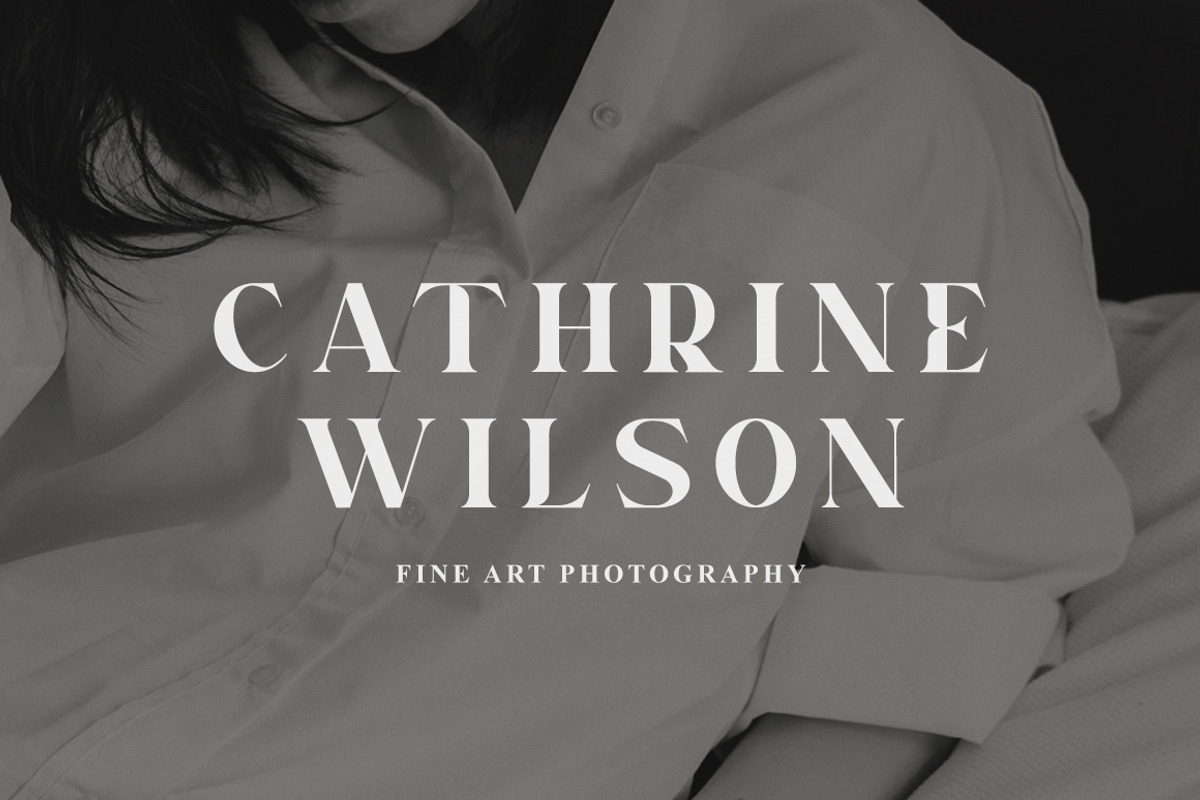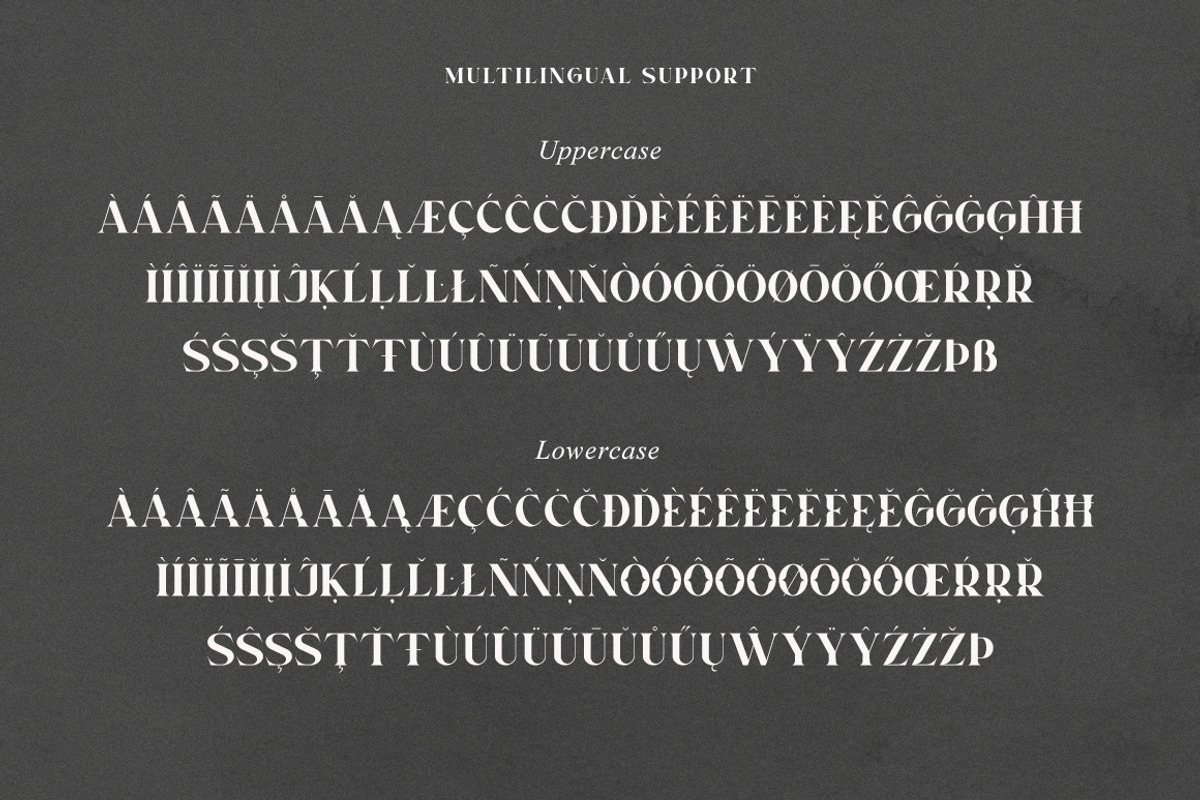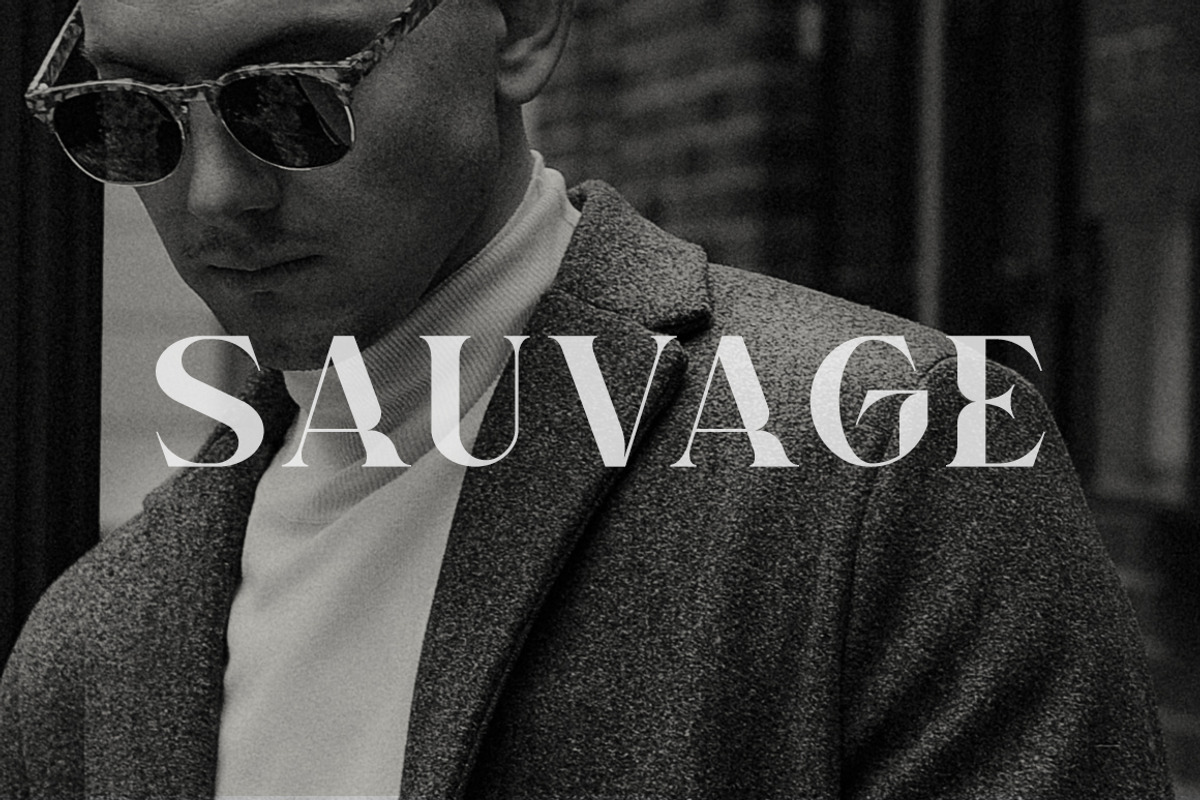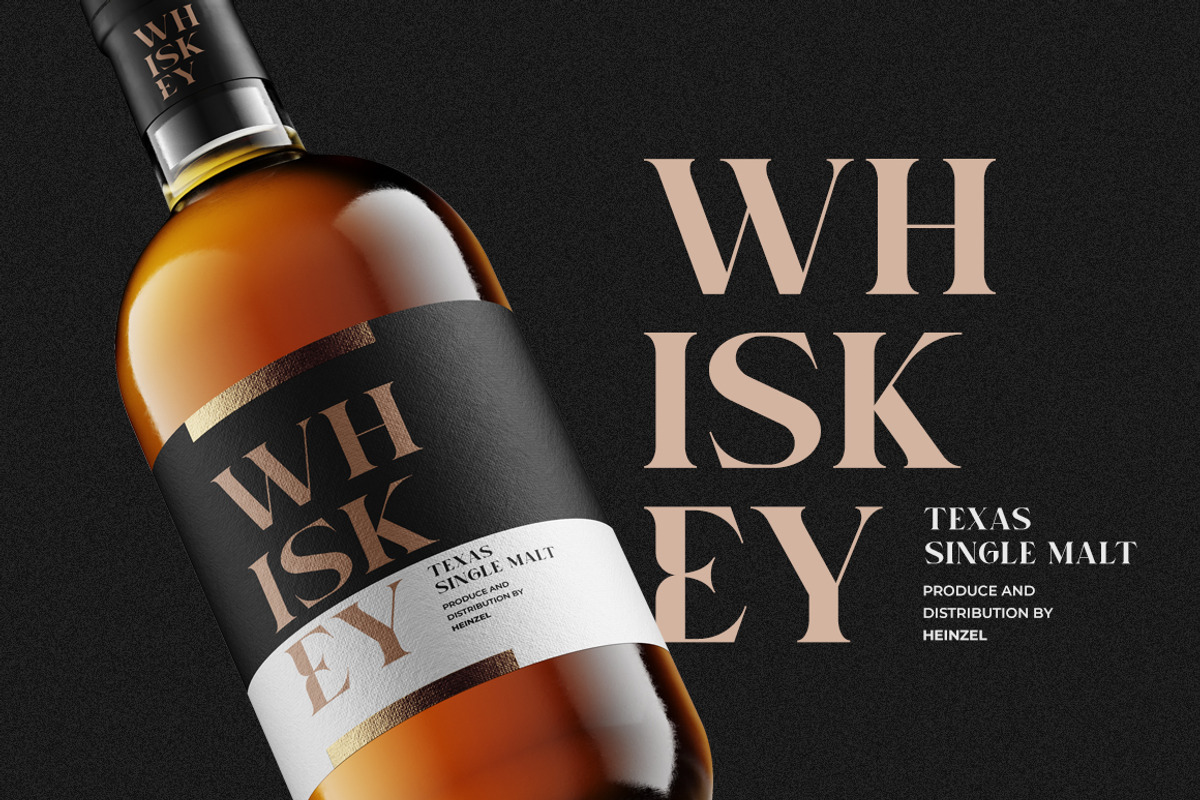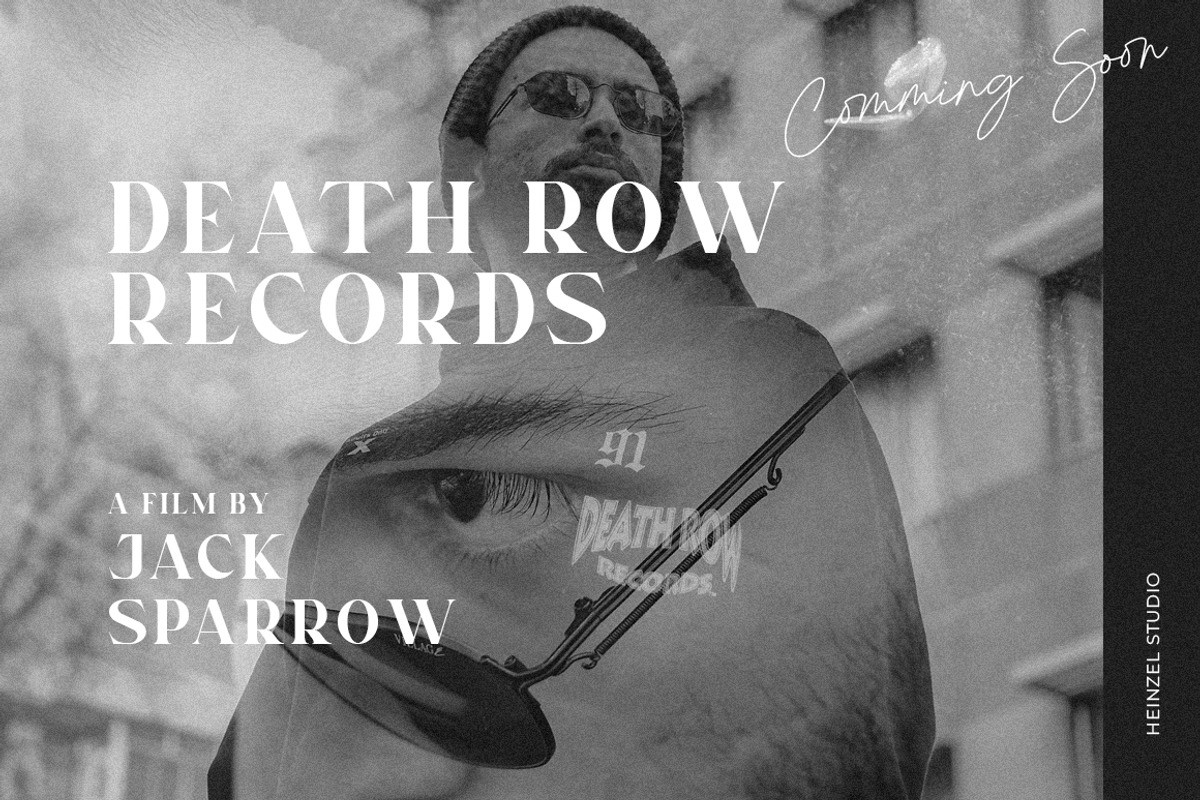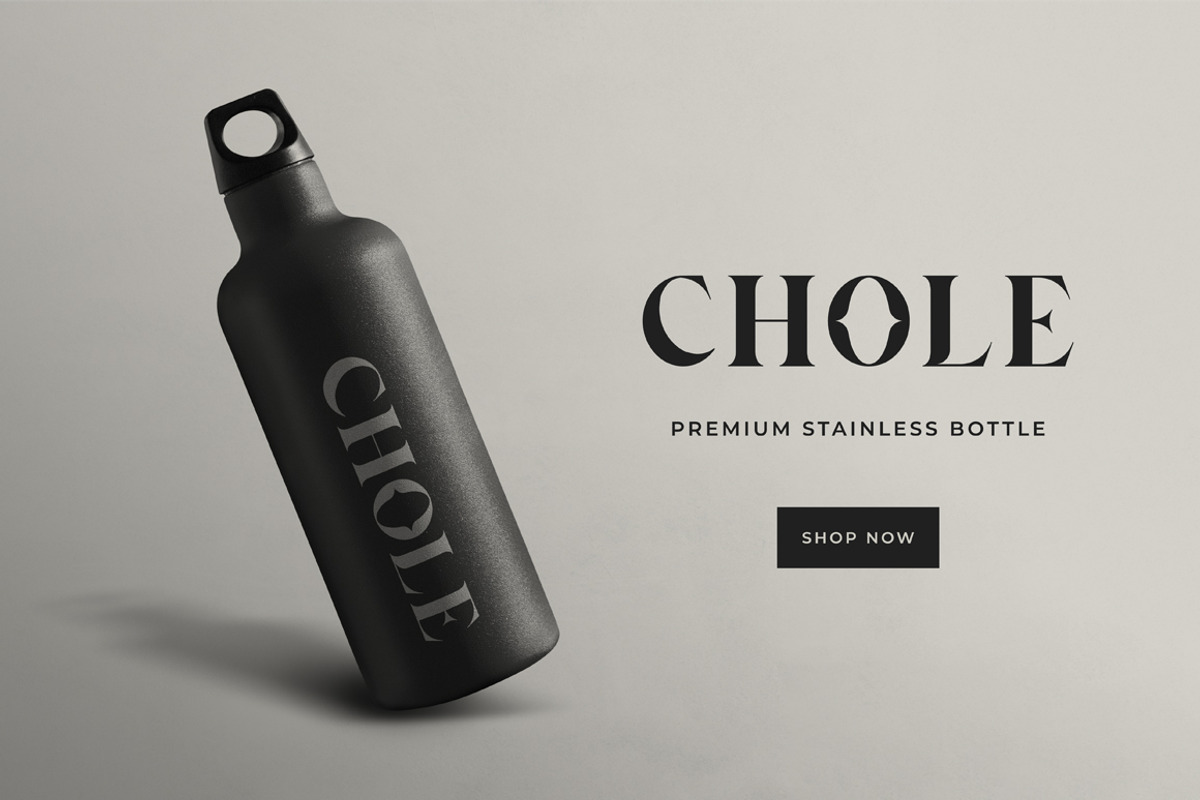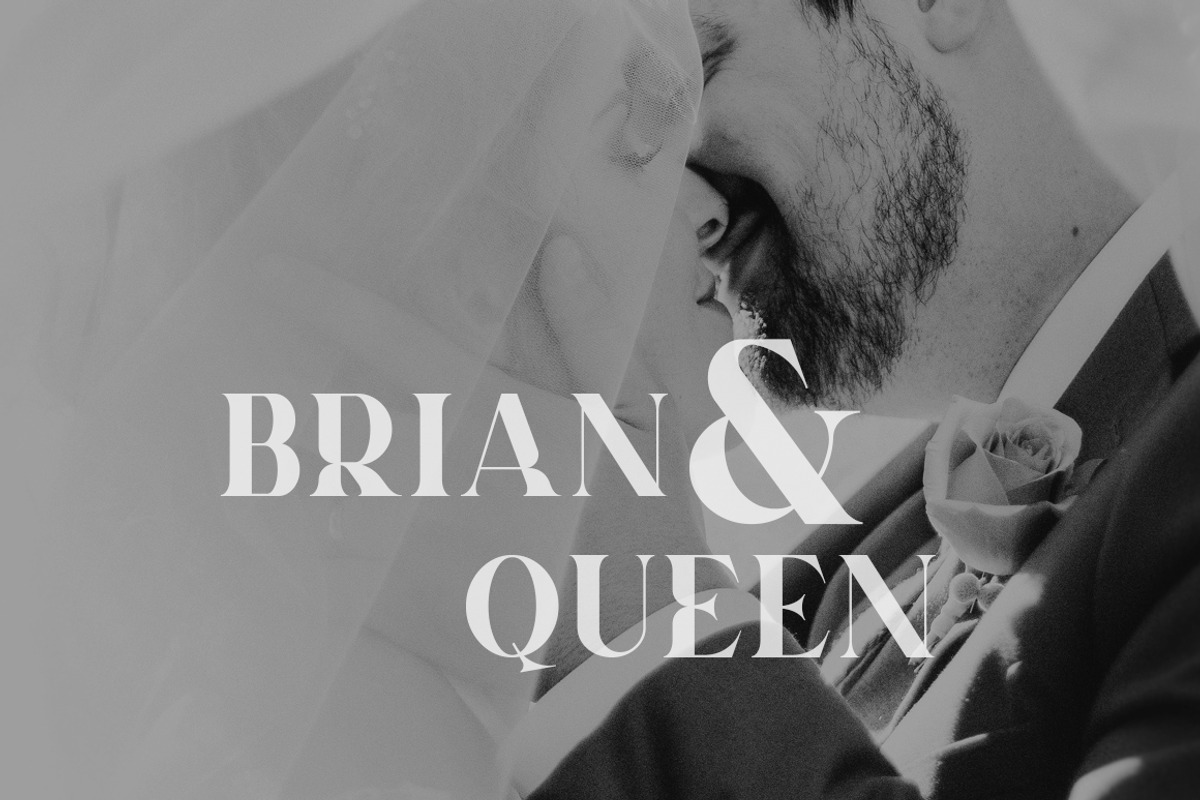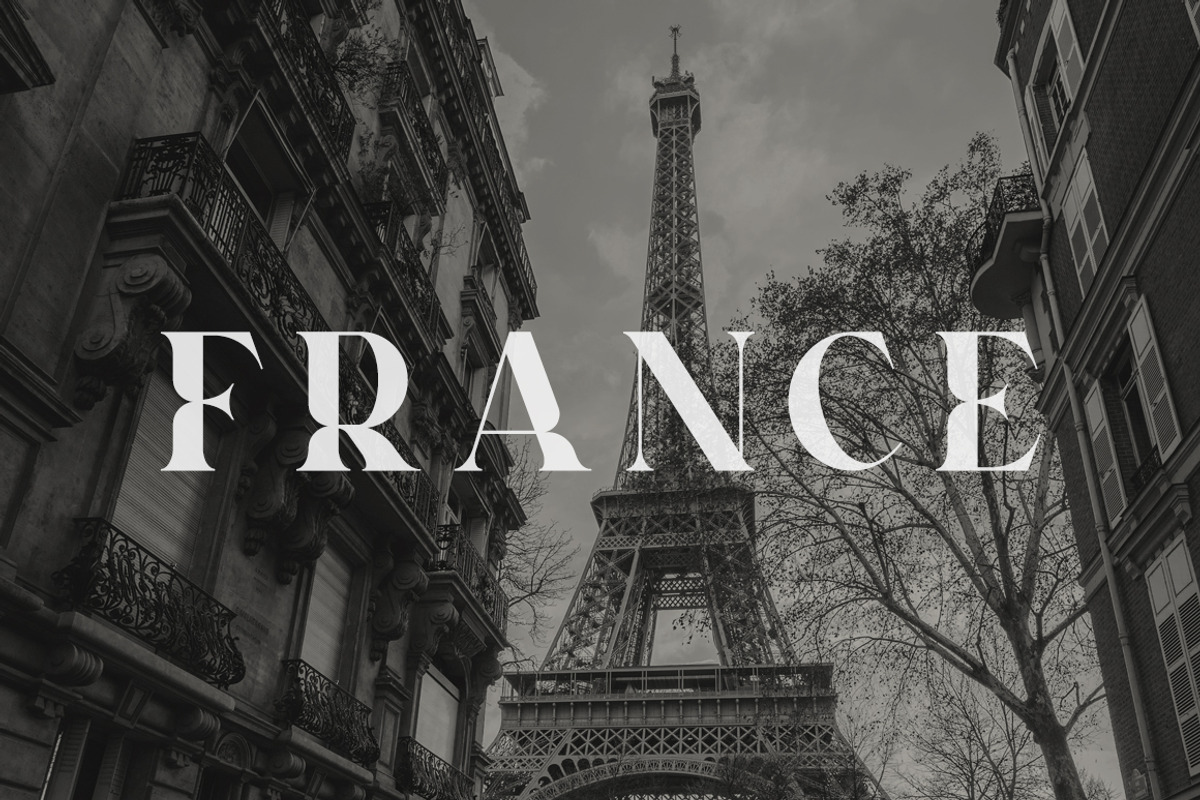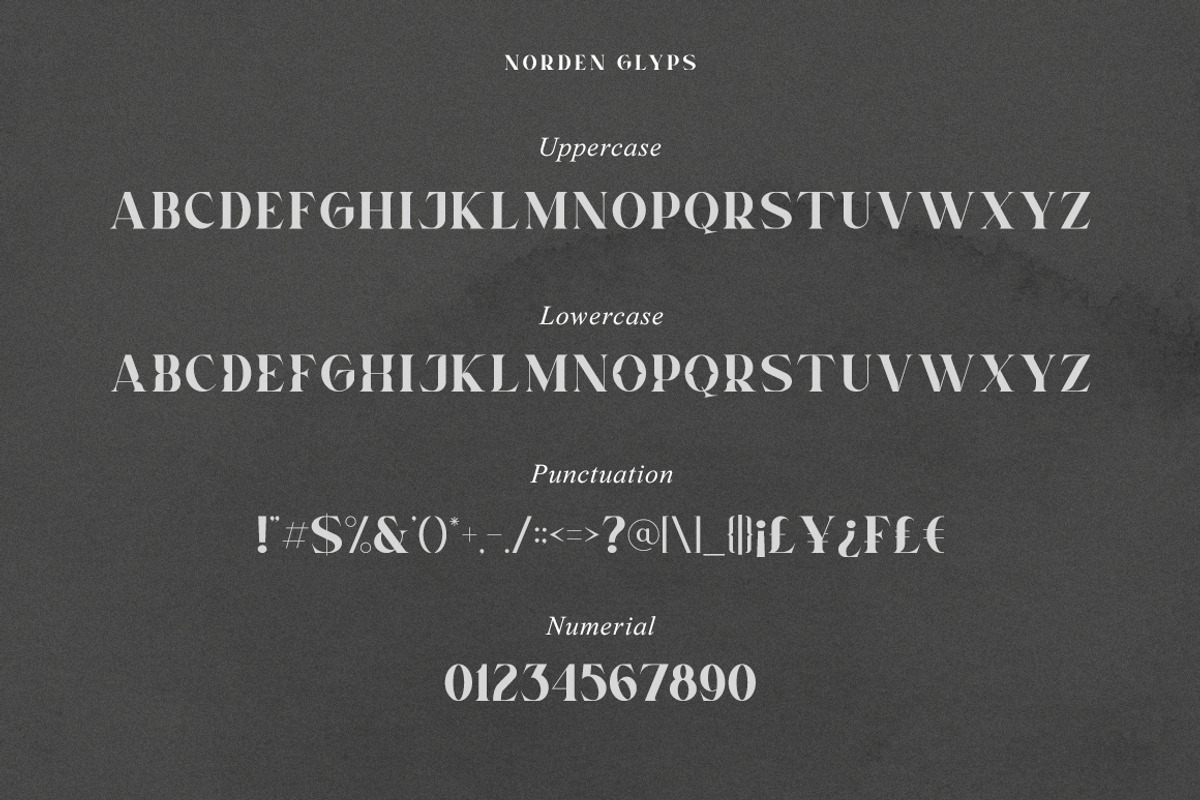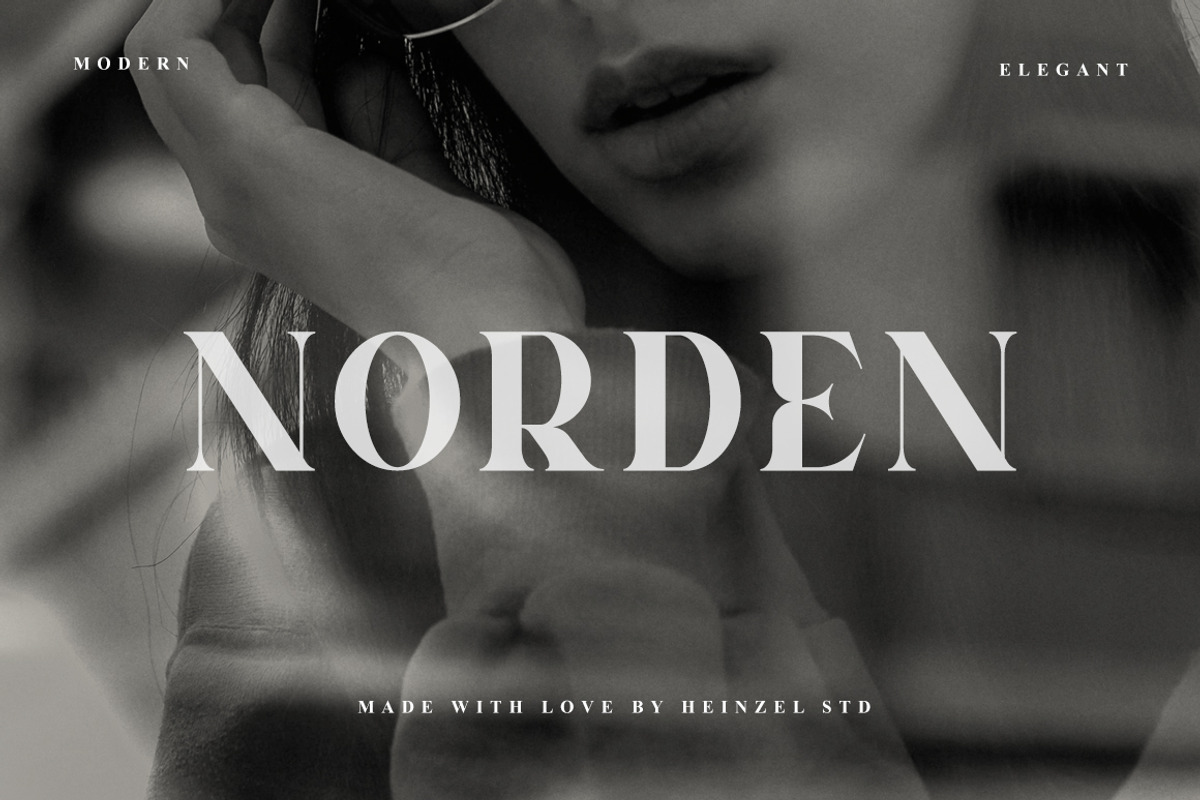
Norden Modern All Caps Serif Font
Norden is an elegant and modern all caps serif font. Fall for its ravishing style and use it to create gorgeous logos, headlines, titles, magazines, branding, wedding invitations, beautiful stationary art, eye-catching social media posts, and much more! This font is PUA encoded which means you can access all of the amazing glyphs with ease!
- Norden Regular version, serif font All Caps, Numerals and more punctuations.
- Multilingual support for various languages